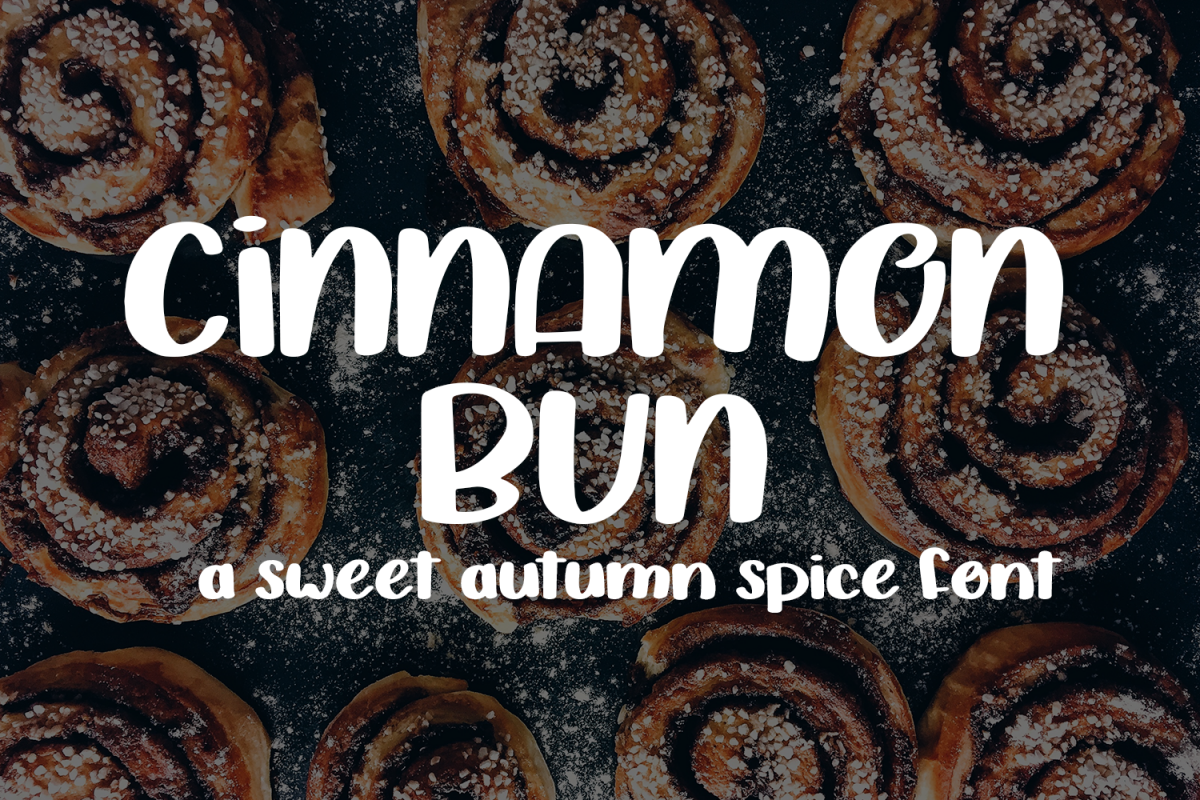
Cinnamon Bun - A sweet, handwritten font
Cinnamon Bun
Cinnamon Bun is a sweet, warm handwritten font, featuring extra-thick strokes.
This font is perfect for designers who like the expressiveness of hand-drawn type.
Use it on banners, t-shirts, packaging and more!